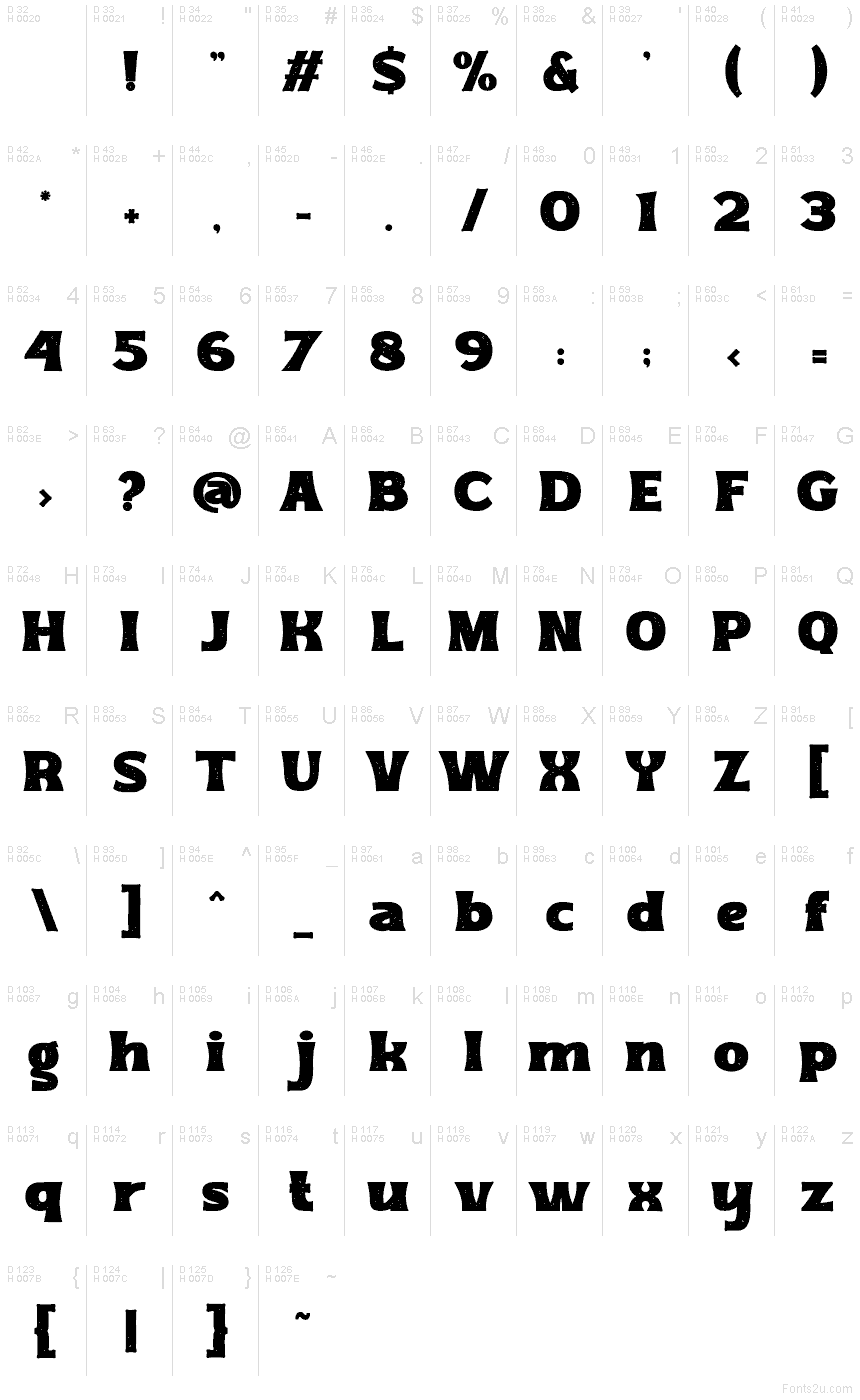
Holy Golden Texture
Holy Golden Texture font by PutraCetol Studio is a free retro display typeface. Part of the Holy Golden family, it packs chunky, soft-edged letterforms dusted with a lively, inky grain—like a poster pulled from a well-worn screen print. The weight is generous, the rhythm steady, and the speckled texture adds instant warmth and lived-in character without feeling messy.
This free font shines on event posters, vintage-inspired packaging, band merch, cafe menus, social graphics, and bold logos. Using Holy Golden Texture lets you dial up nostalgia while keeping messages loud and readable. Pair it with a clean, untextured sans for small copy and let the textured headline carry the mood.